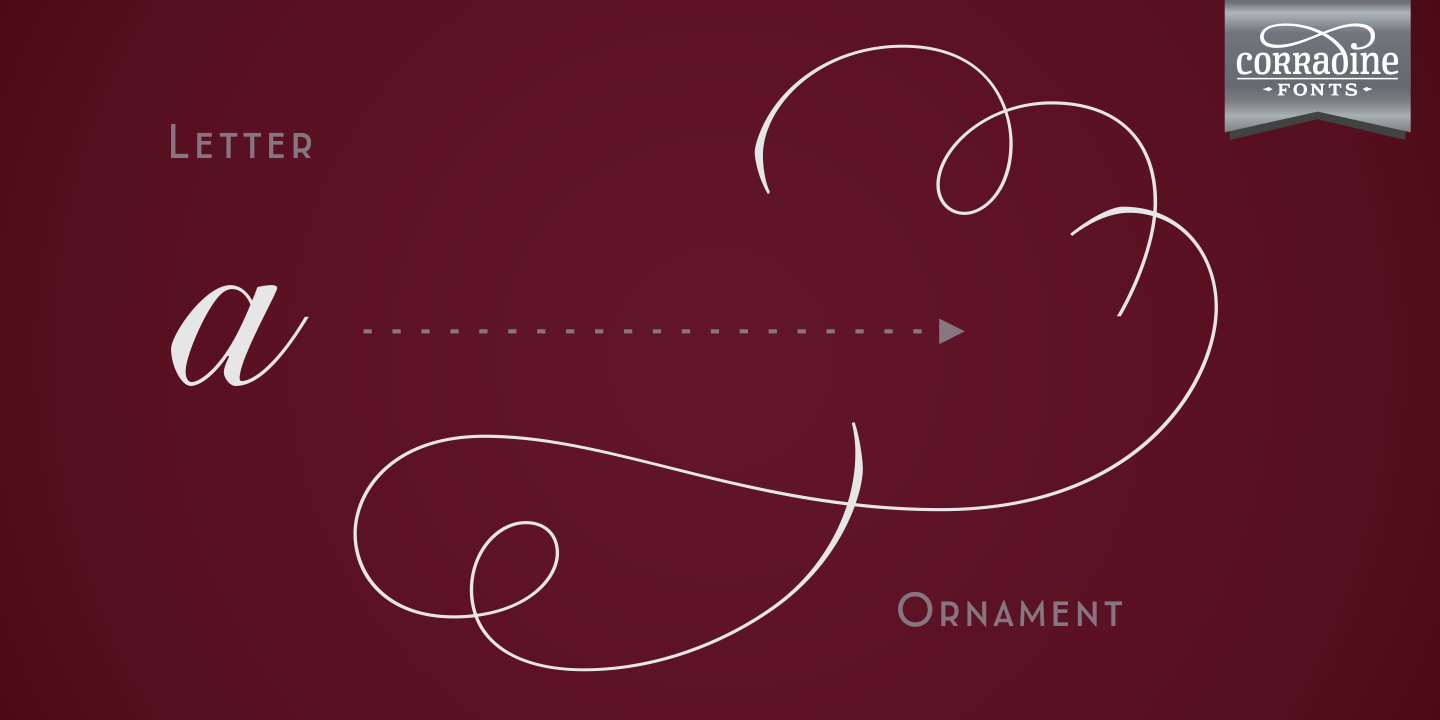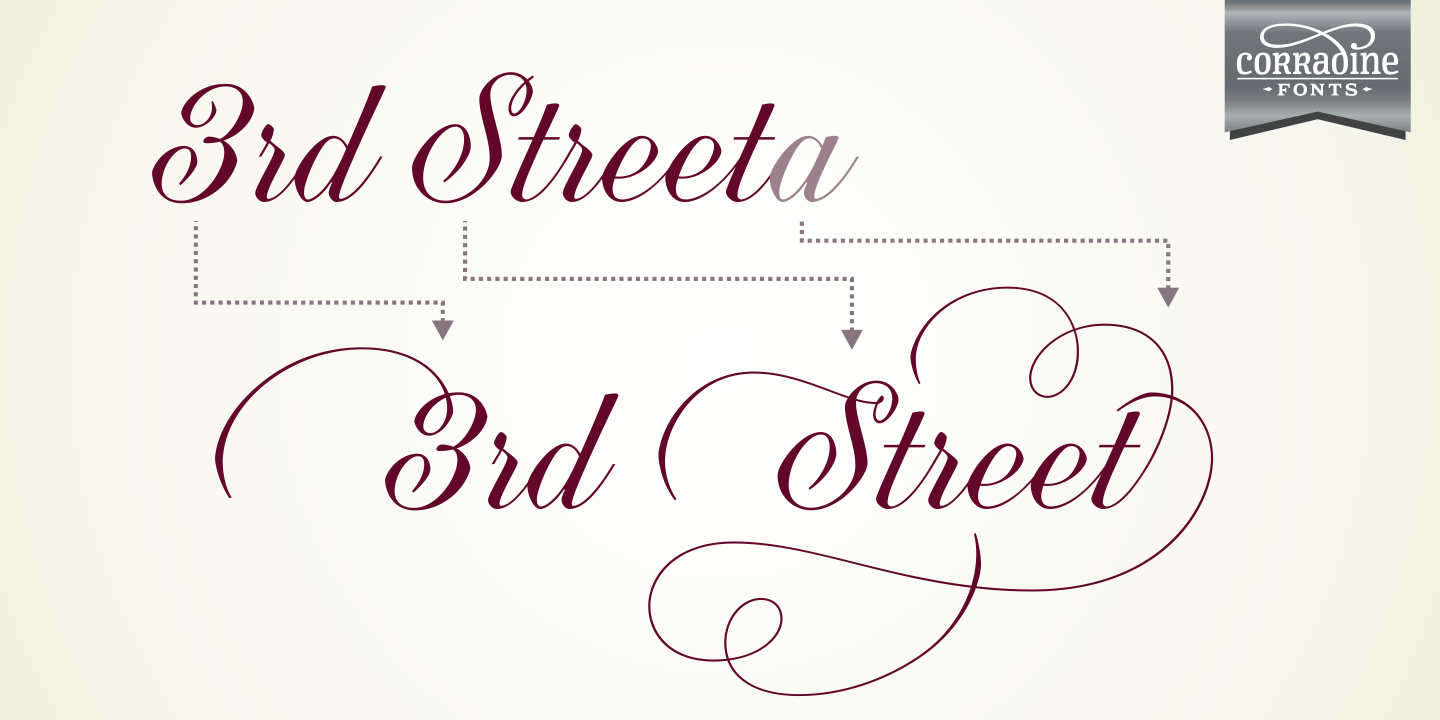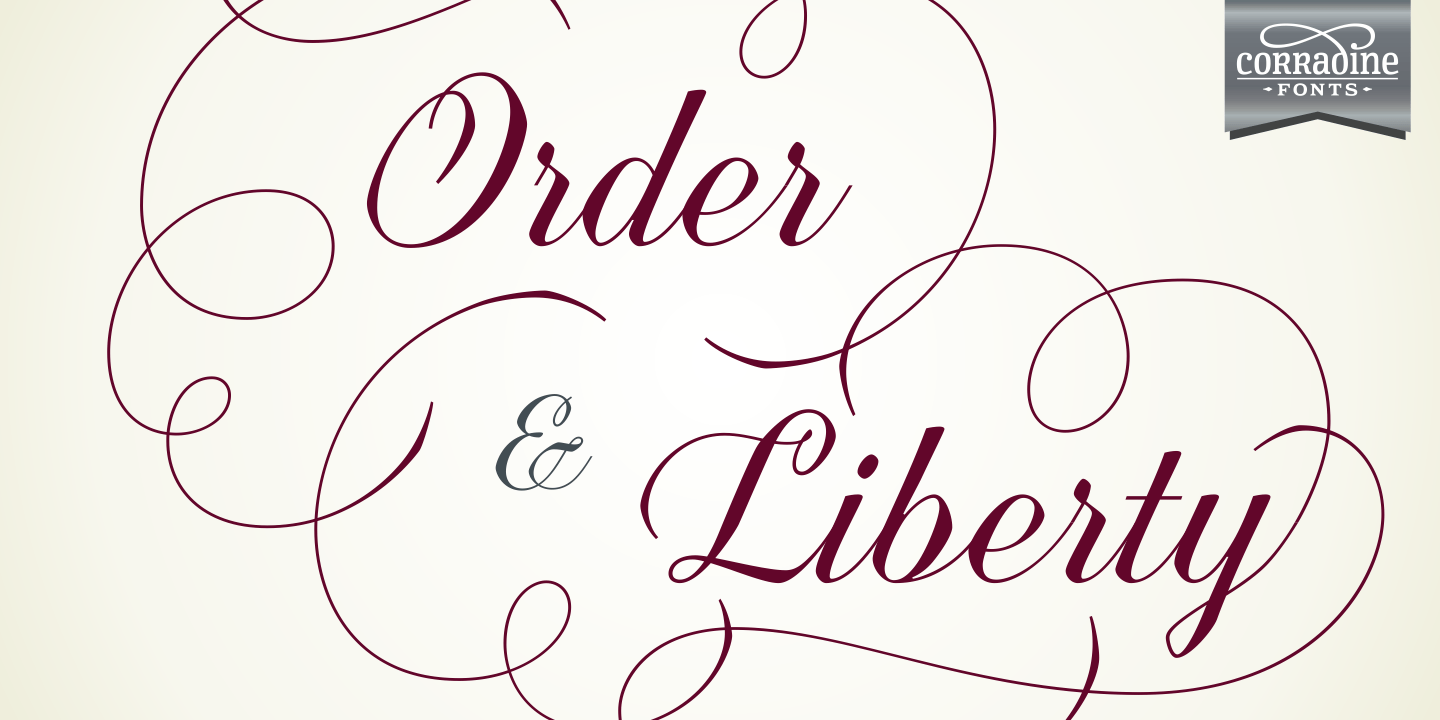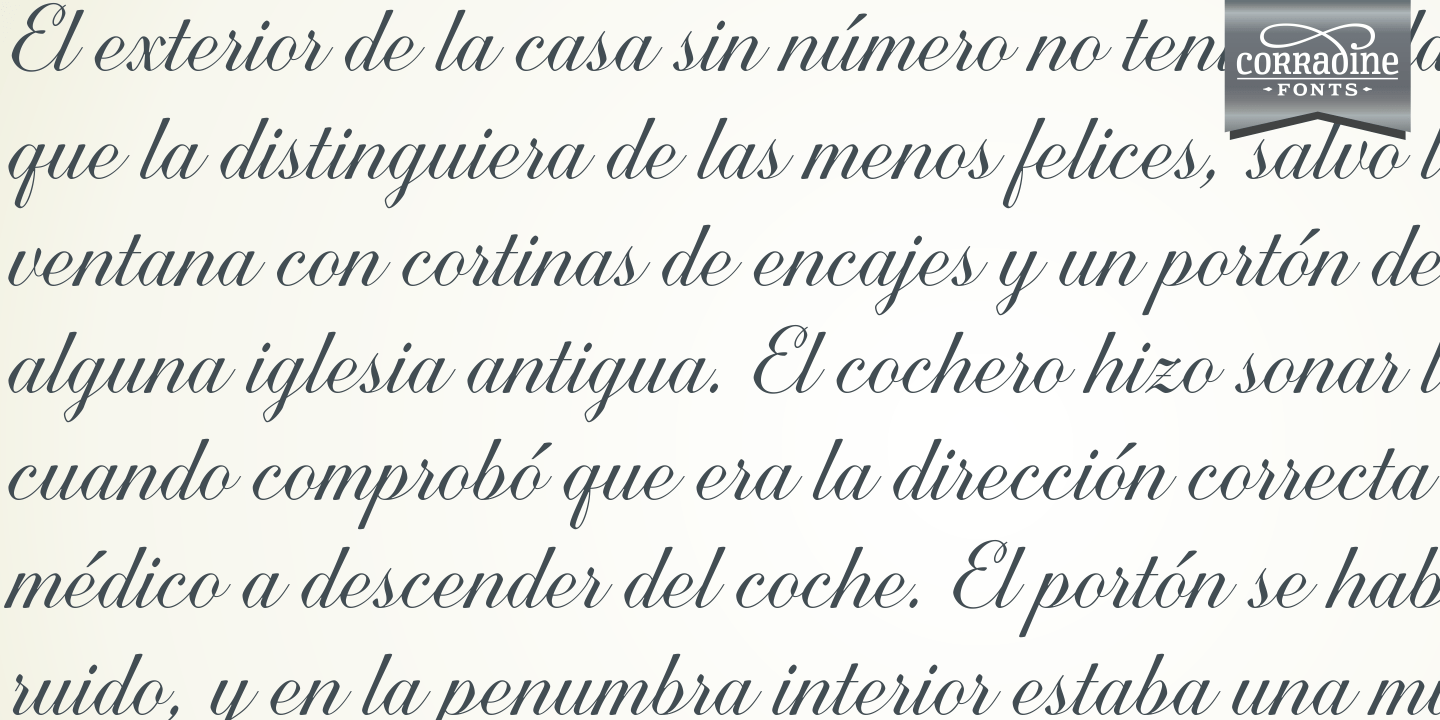
Quarzo
This script font is inspired by the flexible nib to create a concatenation of refinement with character mixing the contrasted strokes with pronounced but rounded angles. This angles along with the inktraps give the font a better performance when printing. Texts will have a very even rhythm due to its consistency on the stroke's angle and spacing.
The words can receive a dramatic touch by using the wide range of glyphs with curly and refined ornamentation. There are lots of caps and number variants dressed up with a variety of swashes. Also, two sets of versatile ornaments will be found: a first set of ending flourishes that match with any lowercase letter and a second set of independent flourishes to be placed around the words. Quarzo will give a great sophistication level to invitations, cards, tags, menus, advertising and packaging.
Its character map covers Western and Central European characters.